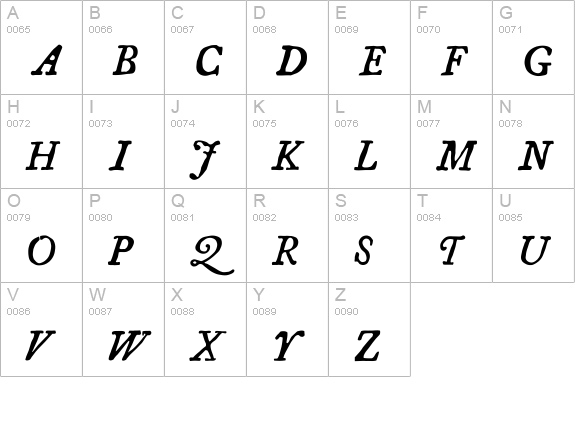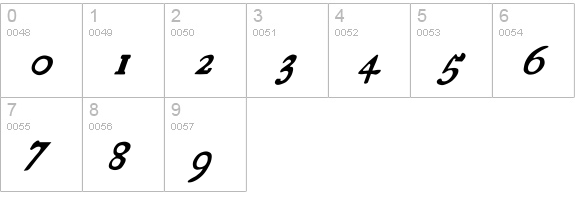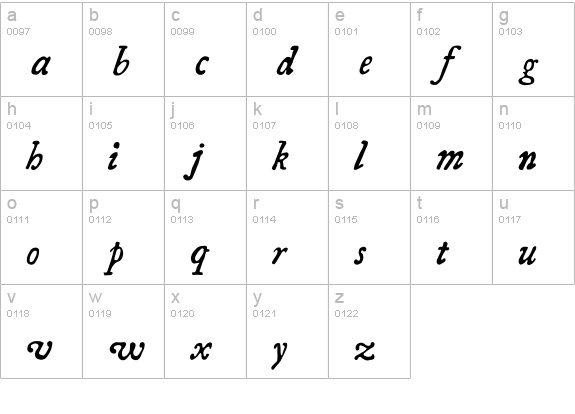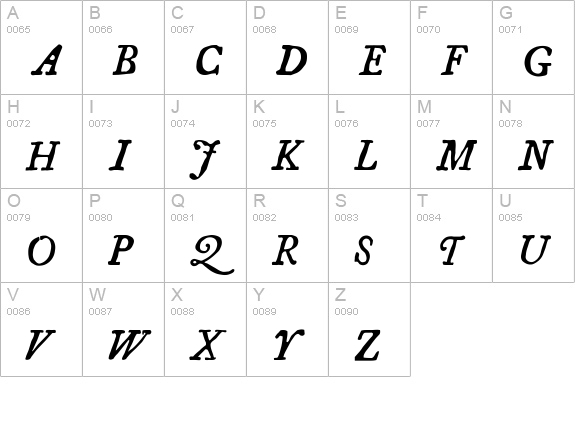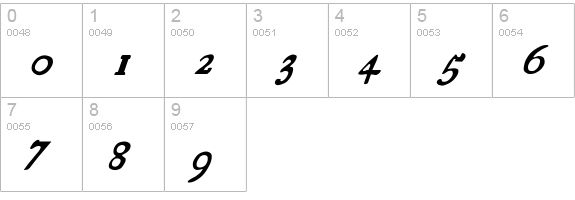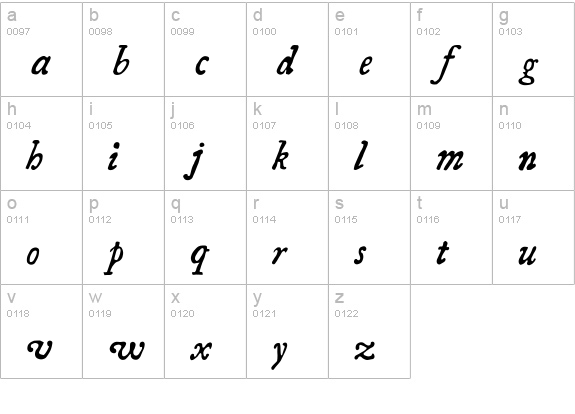
Essays 1743 Italic Font Details
Essays 1743 Italic is a distinctive, italic variant in the Essays typeface family \xE2\x80\x94 well suited to design and typography projects.
Essays 1743 Italic font is a sophisticated and elegant typeface that exudes a sense of classic charm and refinement. Its gracefully slanted letters convey a sense of style and sophistication, making it a perfect choice for projects that require a touch of elegance. The italicized design adds a sense of dynamism and movement to your text, making it stand out with a touch of flair. What's even better is that Essays 1743 Italic font is available for free download at FontsMarket.com. This means you can easily access and use this beautiful typeface in your projects without any cost. With its timeless appeal and beautiful design, Essays 1743 Italic font is sure to elevate the look of any text and make a lasting impression on your audience.